18 Fonts Similar to Calibri
Looking for fonts similar to Calibri or a solid Calibri font substitute? How do we find the closest font to Calibri? In this article, we'll check out some fonts like Calibri, as well as a bit of the font's history and what makes it such a popular choice. Check out these fonts and find your new favorite Calibri alternative today.
In terms of typographic history, Calibri is a relatively young font. Most users became first acquainted with Calibri in the late 2000s. At this time, Calibri replaced long-standing font defaults Times New Roman and Arial in many widely used Microsoft applications.
Chances are, you might have the Calibri font installed on your computer. This is also why you might see the issue of "Arial vs. Calibri" online; Calibri was its replacement. However, in regards to the better choice of Arial vs. Calibri, the jury may still be out (and highly subjective) on that.
Calibri's influence is visible in many other typefaces. It has a soft, rounded edge that gives it a versatile neutrality. It looks great at a variety of sizes too; try this font for your body copy, but it works great in points of interest too.
So, what font is similar to Calibri? The closest font to Calibri would have clearly modern influences. Here's a great example of some features that Calibri may further have popularized. Notice how it makes for a really classy aesthetic in this package design.
Prefer a font duo? When working with sans serif fonts similar to Calibri, consider pairing them with a bold display font or something with eye-catching flair.
Fonts Similar to Calibri
Let's take a look at some more fonts similar to Calibri. Remember to consider what aspects of Calibri most resonate with you. There are many different aesthetics when it comes to sans serif fonts. When considering what font is similar to Calibri, keep an eye out for a clean, modern aesthetic, but not necessarily overly geometric.
Here's a sample of some of the stylish fonts you can download today, including many modern fonts that could work as a Calibri alternative:
1. JUST Sans Clean Geometric Typeface
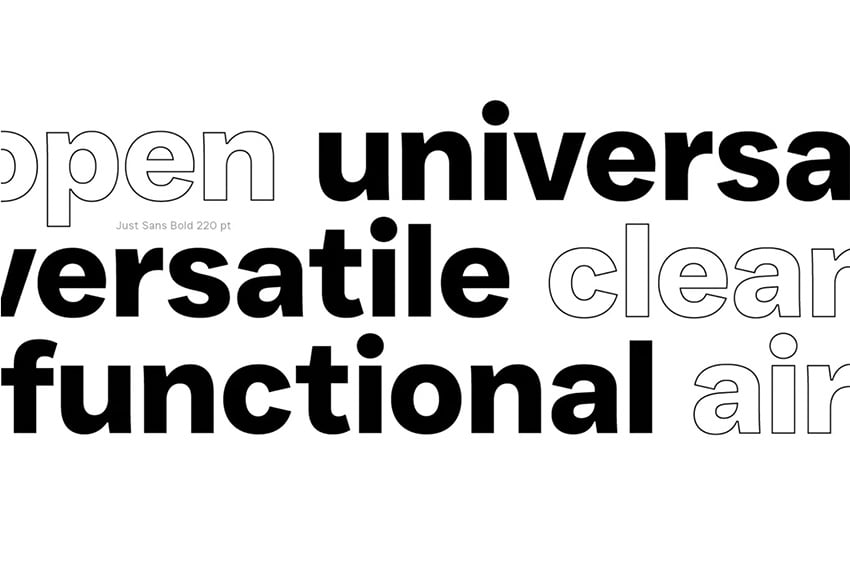
Do you like Calibri’s clean simplicity but want something more modern, stylish, and versatile? JUST Sans is a great alternative. With sharper details, open letterforms, and a touch of personality, this geometric font is as readable as Calibri, but with extra character and flexibility.
JUST Sans offers a contemporary look with seven weights, a variable font, and multilingual support. This Calibri alternative works great for branding, presentations, web design and more.
2. Stickler: Modern Typeface + WebFont
This is a nice choice if you're looking for a web font similar to Calibri. It lacks some of the softer roundness, but maintains a clean, modern aesthetic.
3. Carino: A Modern Elegant Typeface
Here's another elegant sans serif with some modern touches. It has some really lovely rounded edges. This Calibri font alternative has a bold all-caps font, perfect for display type.
4. Clarity Nuvo: Clean & Modern Sans-Serif Typeface
This font is a stylish Calibri alternative, with multiple weights to choose from. This is an excellent choice if you're looking for a versatile addition to your font library.
5. Grafic Simple and Clean Sans Serif Typeface
Isn't this font clean and stylish? It's got a timeless feel that could work well for a number of design projects and target aesthetics. Try pairing this one with a display font or let it hold its own.
6. Rockyeah Sans Serif Font
Here's another stylish sans serif that's perfect for display. The Calibri font alternative an all-caps font, and it has some interesting and unexpected variation in some of the strokes. Give it a look.
7. Asure All Caps Sans Serif Typeface
The rounded edges in this one give it a bit of softness, but we still have a bold, eye-catching look overall. Give this font a try for headlines, logos, and more.
8. Autogate Sans Serif Font
Isn't this font stylish? Try it out in your next design project. It would be a great fit for poster design, packaging, headlines, branding, and more.
9. Gabriella: Modern Typeface + WebFonts
This font is similar to Calibri in some ways, but also pushes in a different direction. It could be a great Calibri font style, if you're looking for a web font similar to Calibri.
10. Liber Sans Serif Typeface
This font has a rounder look and feel. If you're looking for type with a Calibri font aesthetic, but a mix of other possibilities too, check this one out.